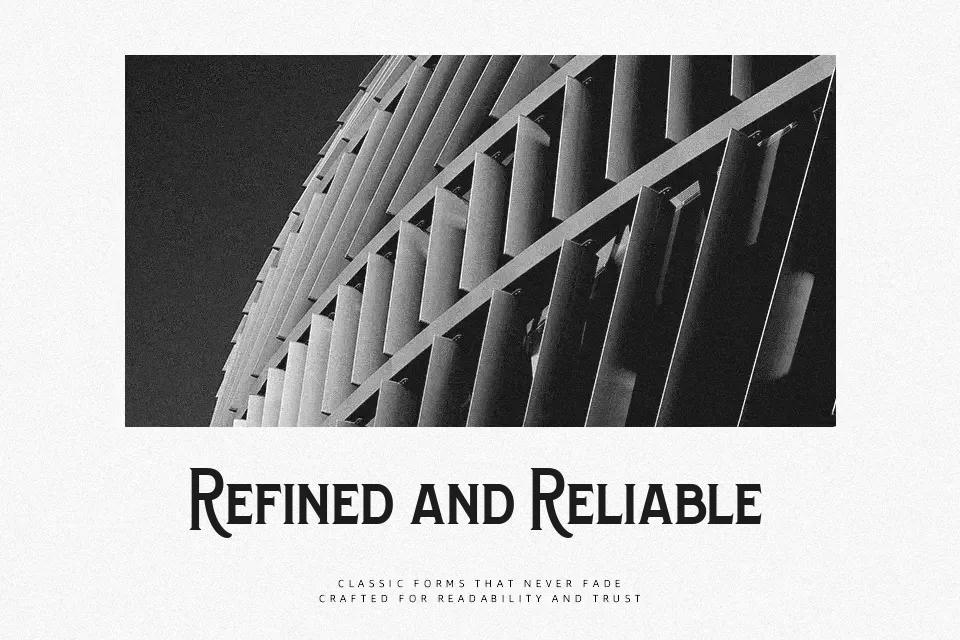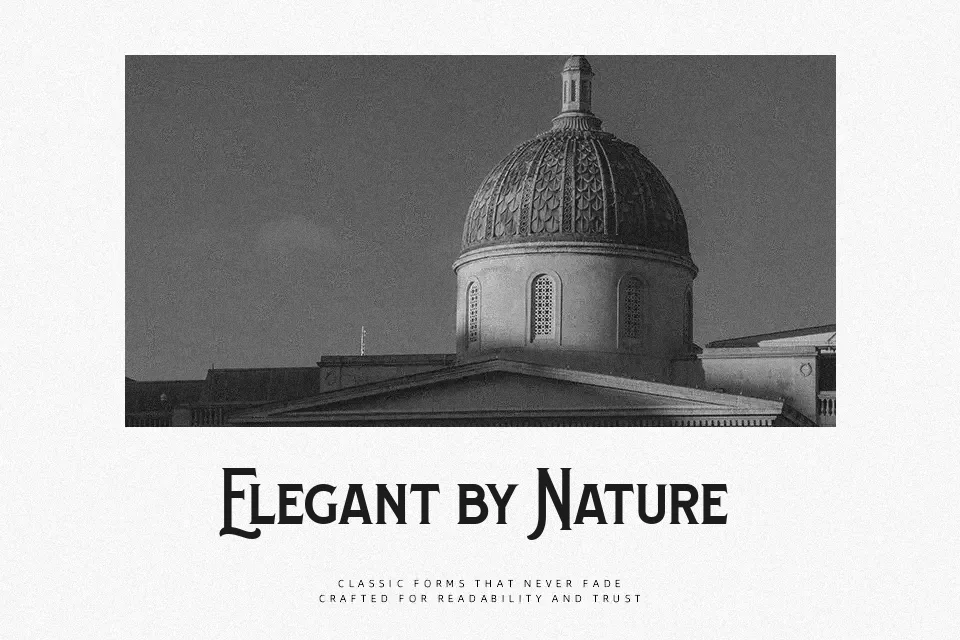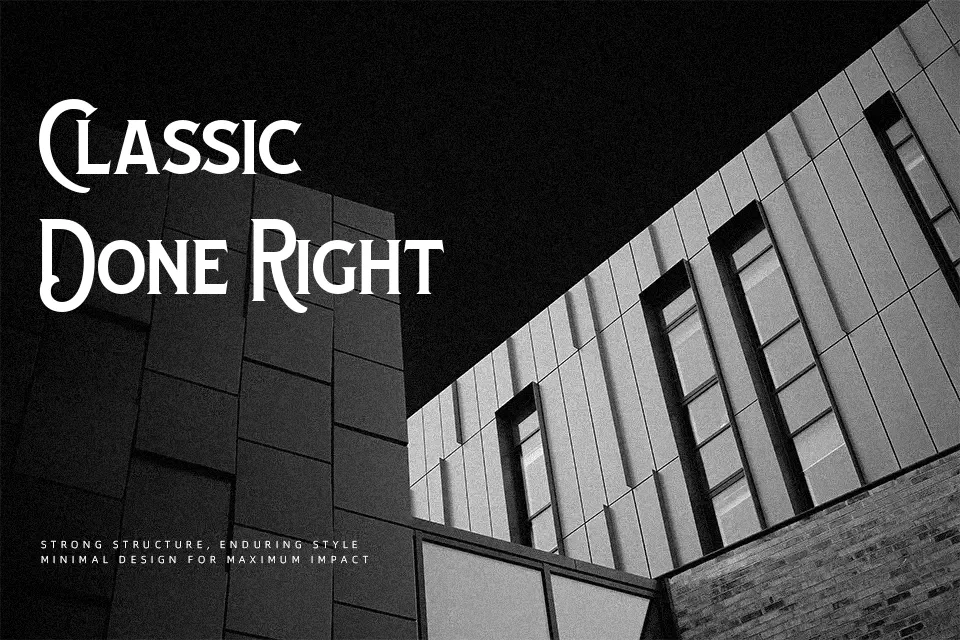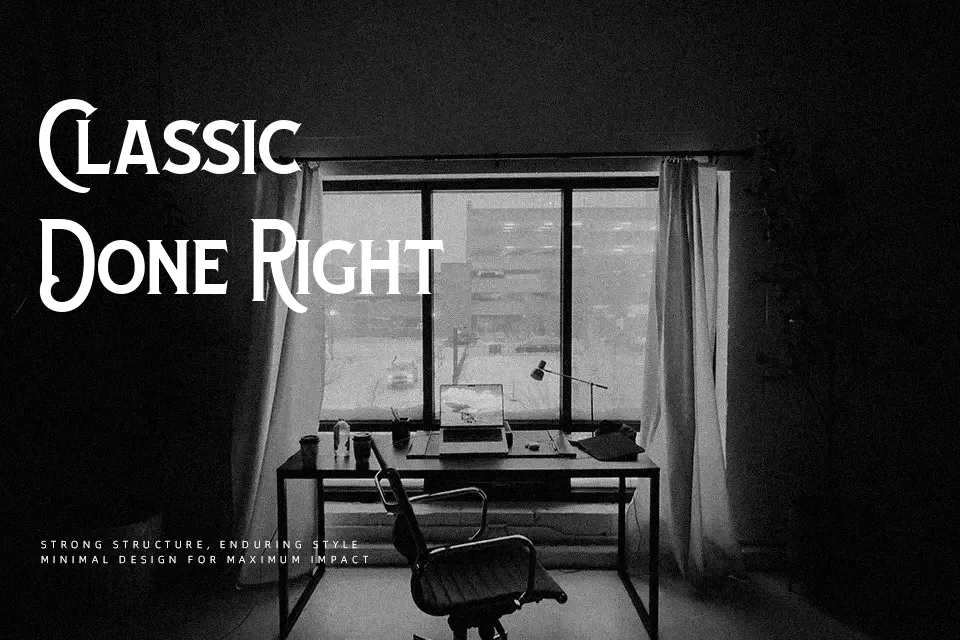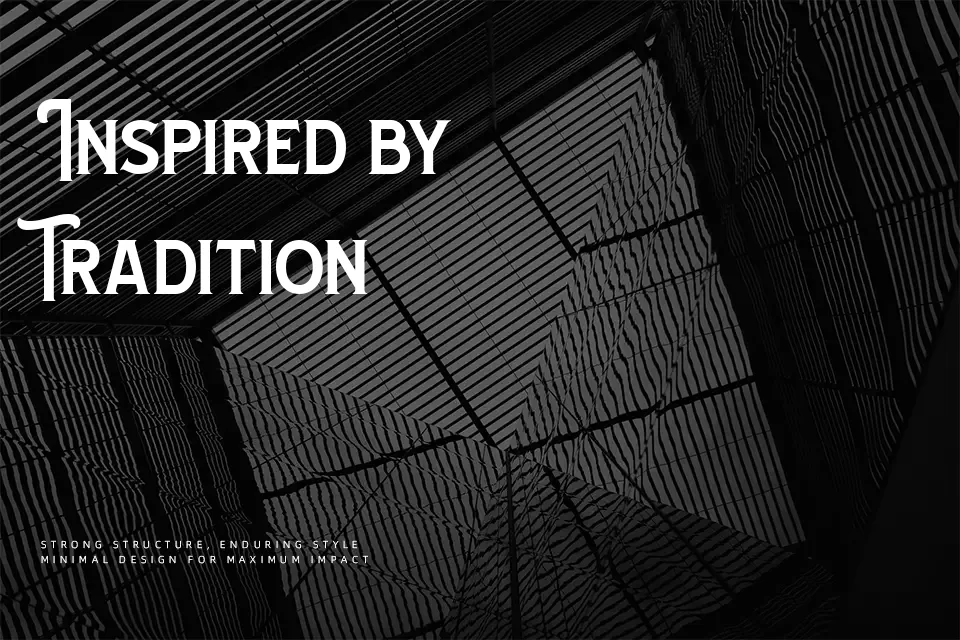
Chemvre Font
Designed by ilhamtaro
Chemvre Font features structured serif letterforms defined by pronounced vertical strokes, sharp terminals, and moderate contrast between thick and thin stems. The uppercase glyphs maintain uniform vertical height and stable horizontal alignment, while the lowercase characters exhibit clean curves and balanced internal counters. Spacing between individual characters remains relatively compact yet well-proportioned, preserving strong visual rhythm across headline displays, vintage branding badges, and product packaging layouts. However, the delicate terminal details and compact tracking make this typeface less suitable for extended paragraph text or dense digital user interfaces where smaller rendering scales compromise letterform separation.
Best For: vintage product packaging, editorial headlines, retro logo badges, boutique signage
Not Ideal For: continuous paragraph reading, mobile app interface text, dense spreadsheet tables, technical documentation
Perfect for editorial, headline, and logo, with a classic and display style.